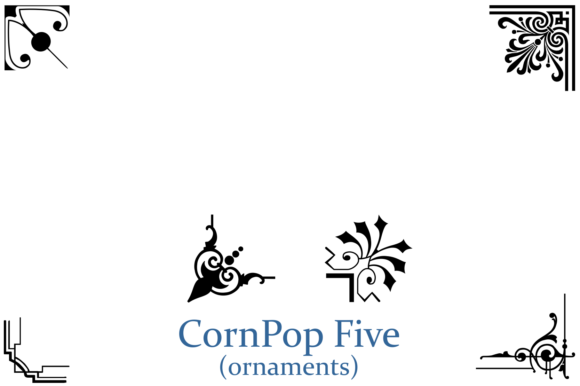
Introduction to Corn Pop Five Font
The Corn Pop Five contains corner ornaments.
They are ready elements to make invitations and more .
Key Features of Corn Pop Five Font